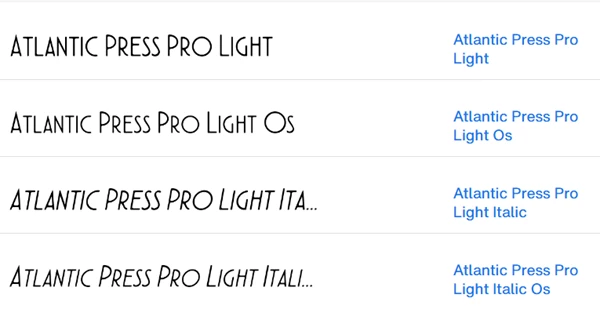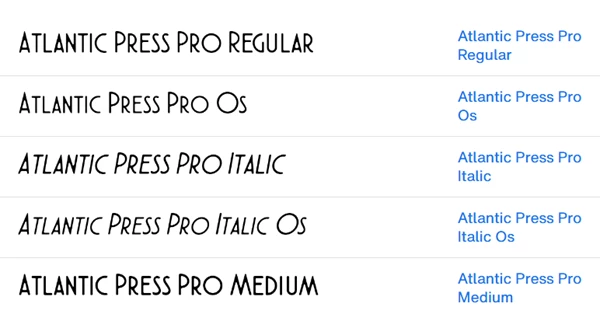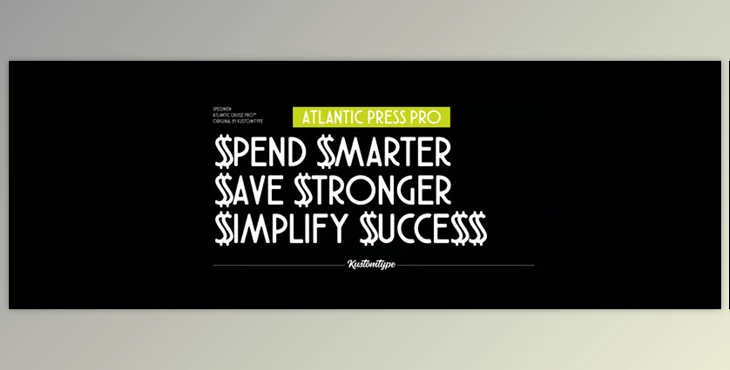
MyFonts - Atlantic Press Pro Font Family:
The Atlantic Press Pro font family opens new levels of unique typography and creates emulations of vintage letterpress printing. The font has an innate ability to capture the charm of classical prints by intricately adding an ink-bleed effect which warms up the designs. Like the Atlantic Cruise Pro, The Press is sophisticated and crafted, giving warm details to any project.